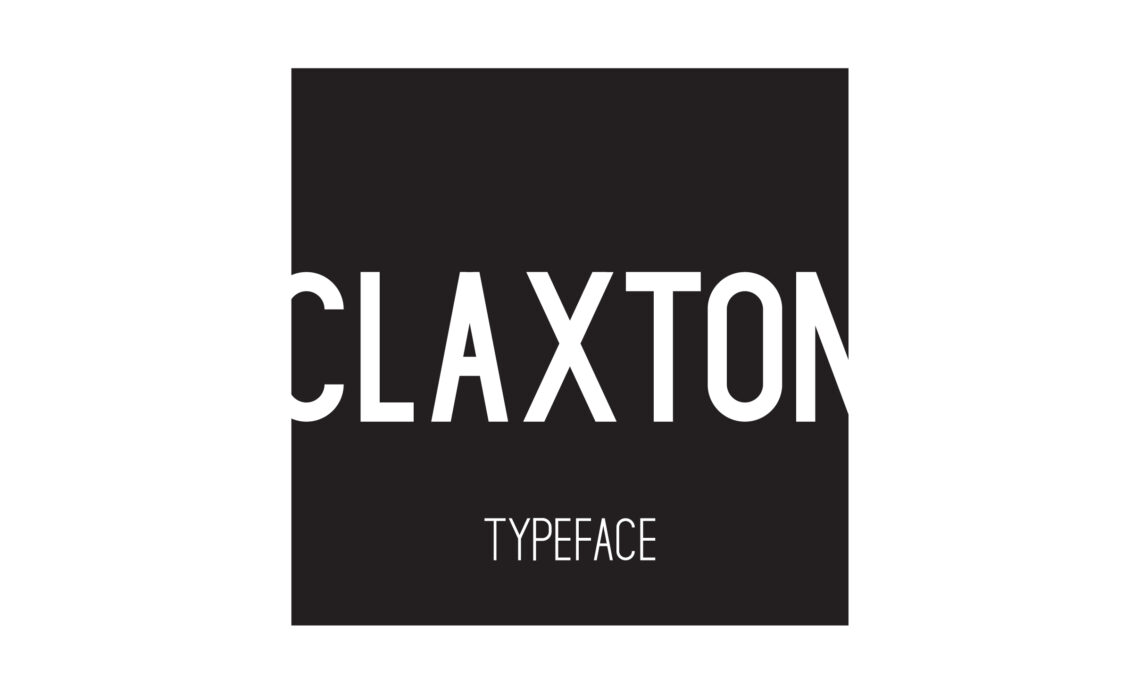
Claxton Font
Prepare to be captivated by Claxton, an extraordinary sans serif font that exudes elegance and sophistication, tailored to elevate your visual creations to new heights. Its clean lines and balanced proportions lend a timeless charm to any typographic endeavor. Immerse yourself in the world of Claxton and let your designs bloom with beauty.
With its simplistic structure, Claxton is the perfect choice for up-market branding, injecting a touch of luxury into your logos, digital designs, and print media. The three weights—light, regular, and bold—offer a spectrum of versatility, allowing you to adapt the font to various design aesthetics and purposes.
Embrace Claxton's alluring character and watch as your designs blossom with distinction. Its timeless design transcends trends, ensuring your creations remain captivating for years to come. Join the creative realm of Claxton and embark on a journey of visual excellence. Unleash your imagination and elevate your designs to the forefront of aesthetic brilliance.